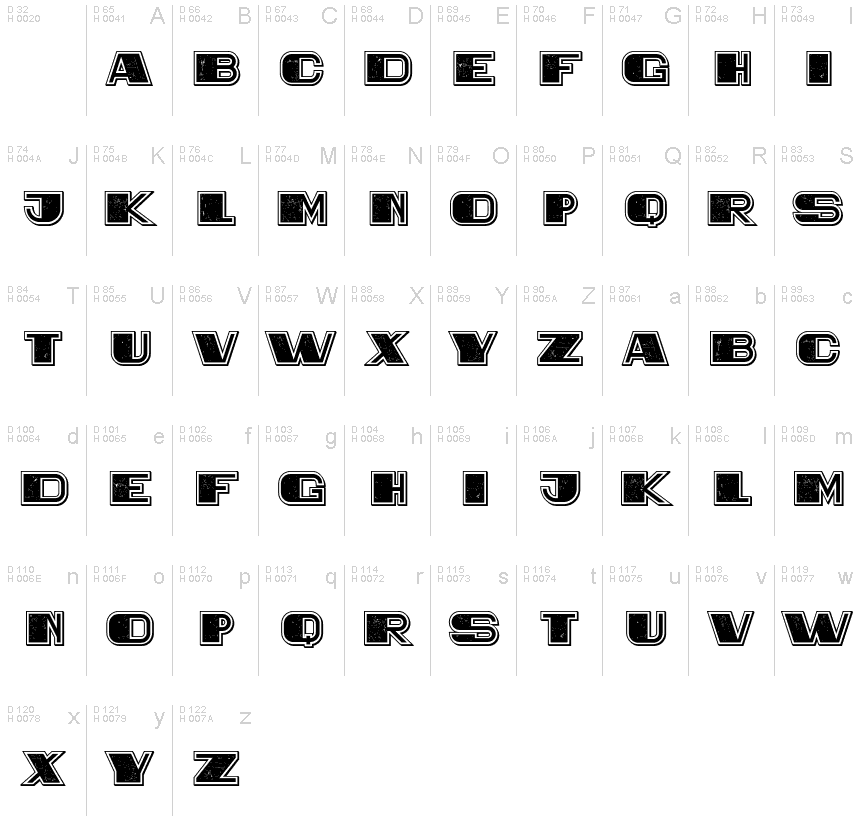
Water Fuel Rocket Regular
Introducing Water Fuel Rocket, a bold eroded display font designed by Vladimir Nikolic. Perfect for creating edgy logos and attention-grabbing headlines, this font is sure to make an impact on any project.